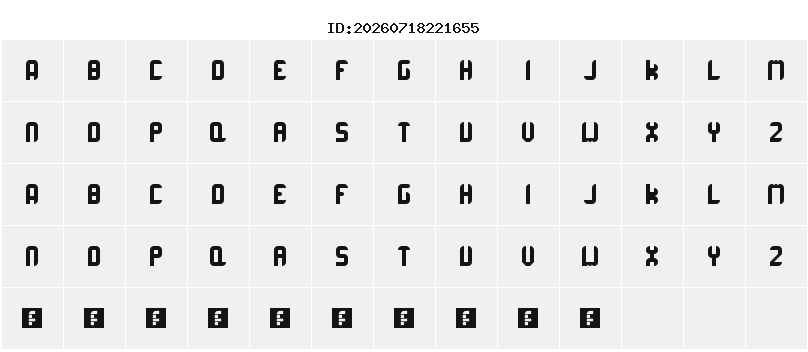
CorruptaRounded Preview
• Font Name: CorruptaRounded
• Font ID: FontStruct CorruptaRounded
• Full Font Name: CorruptaRounded Regular
• PostScript Name: CorruptaRounded
• Character Count: 55
• Copyright: Copyright Dennis Flinsenberg 2009
• Designer: Dennis Flinsenberg
About CorruptaRounded.ttf
CorruptaRounded.ttf is a modern, elegant sans-serif font designed for ultimate readability and visual harmony. Perfect for branding, headlines, web design, and print materials.